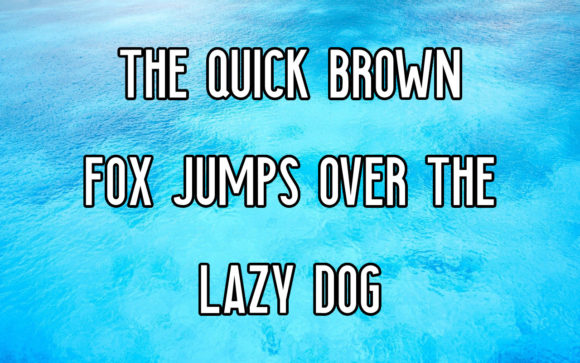
Introduction to Searocks Font
Searocks is a stunning, beautiful and flowing font.
It has beautiful and well balanced characters and as a result, it matches a wide pool of designs Add it to your most creative ideas and notice how it makes them come alive.
Key Features of Searocks Font
Why Choose Searocks Font?
Searocks Font offers exceptional quality and versatility, making it a valuable addition to your design toolkit. Whether you’re creating for personal projects or commercial use, Searocks Font delivers professional results.